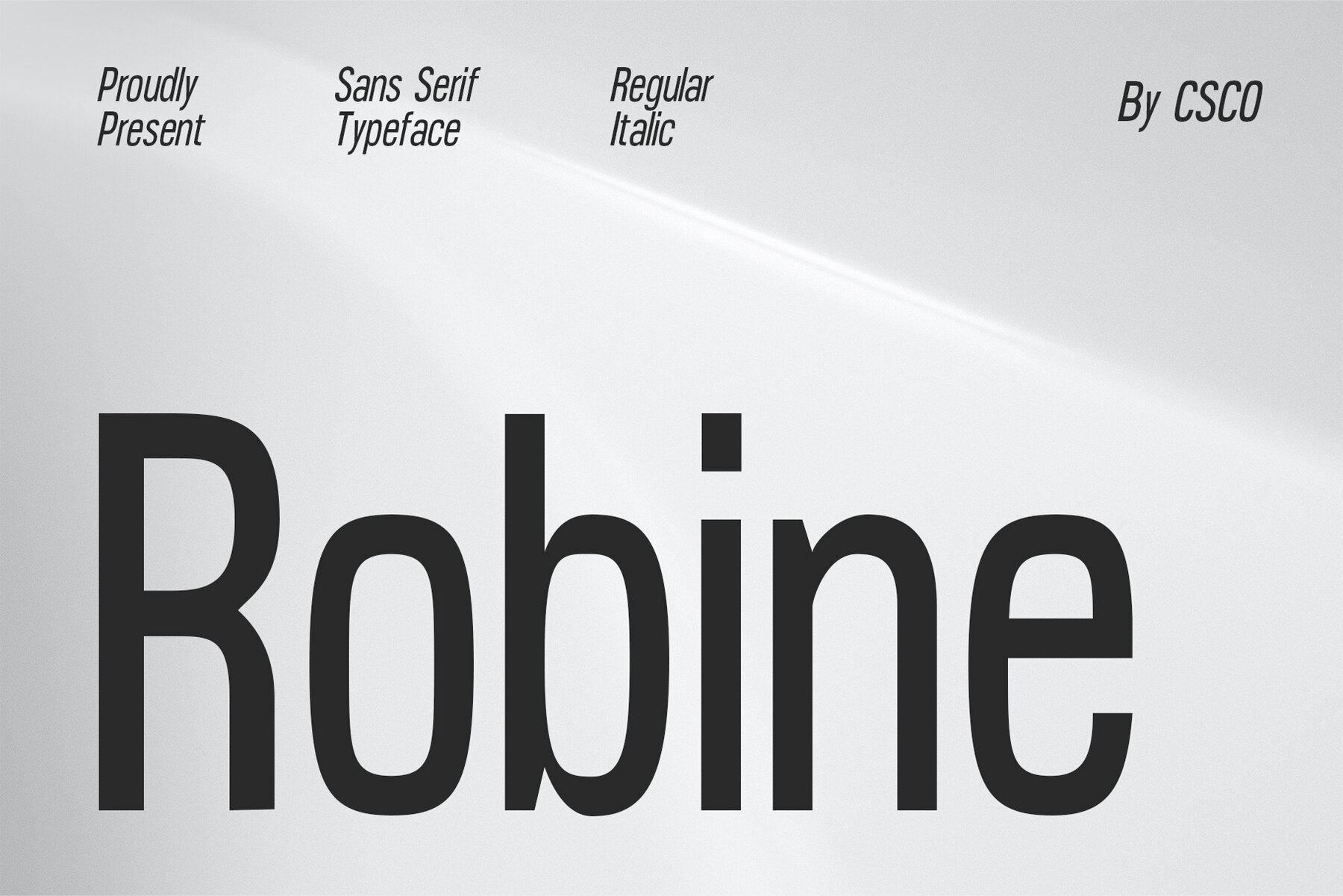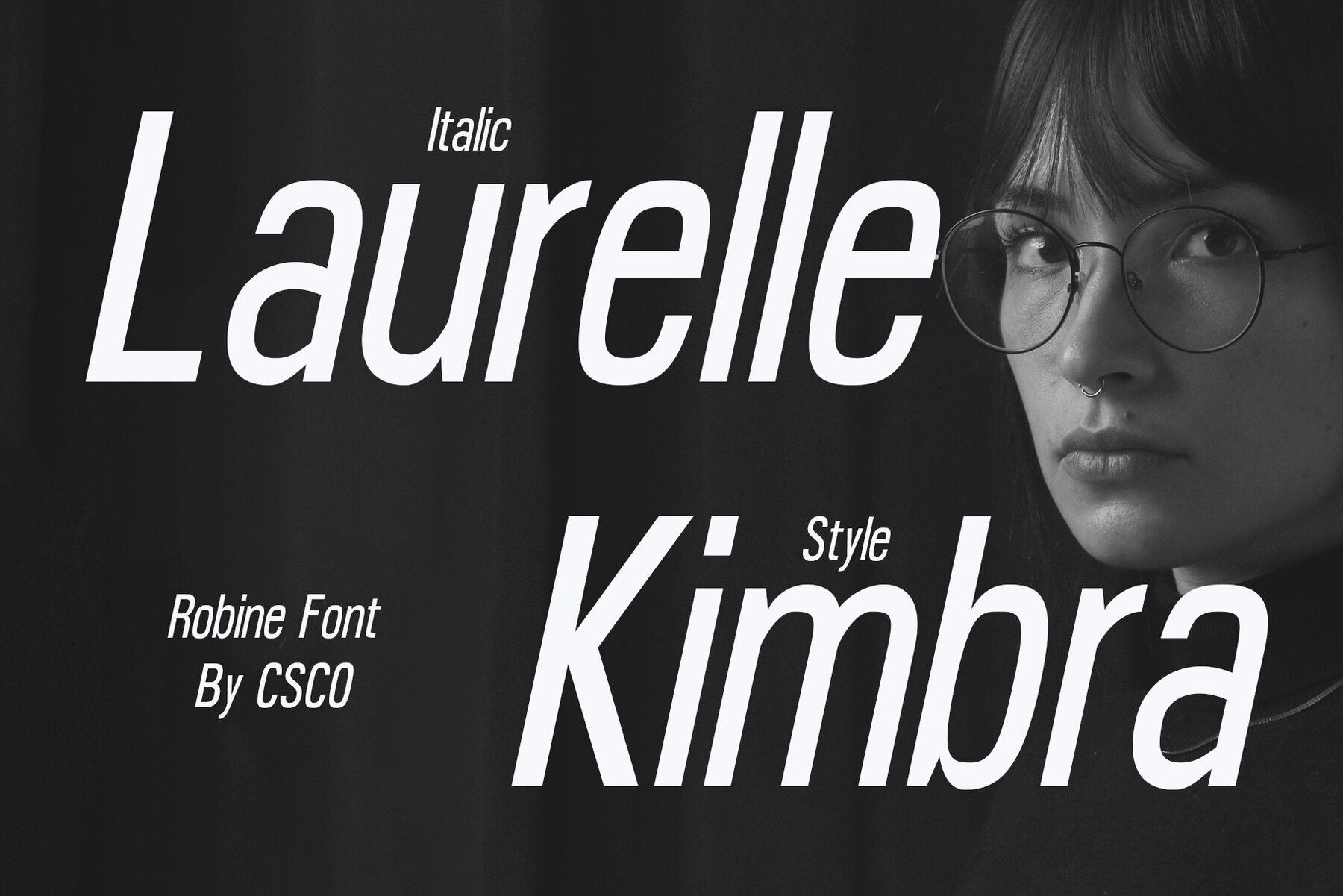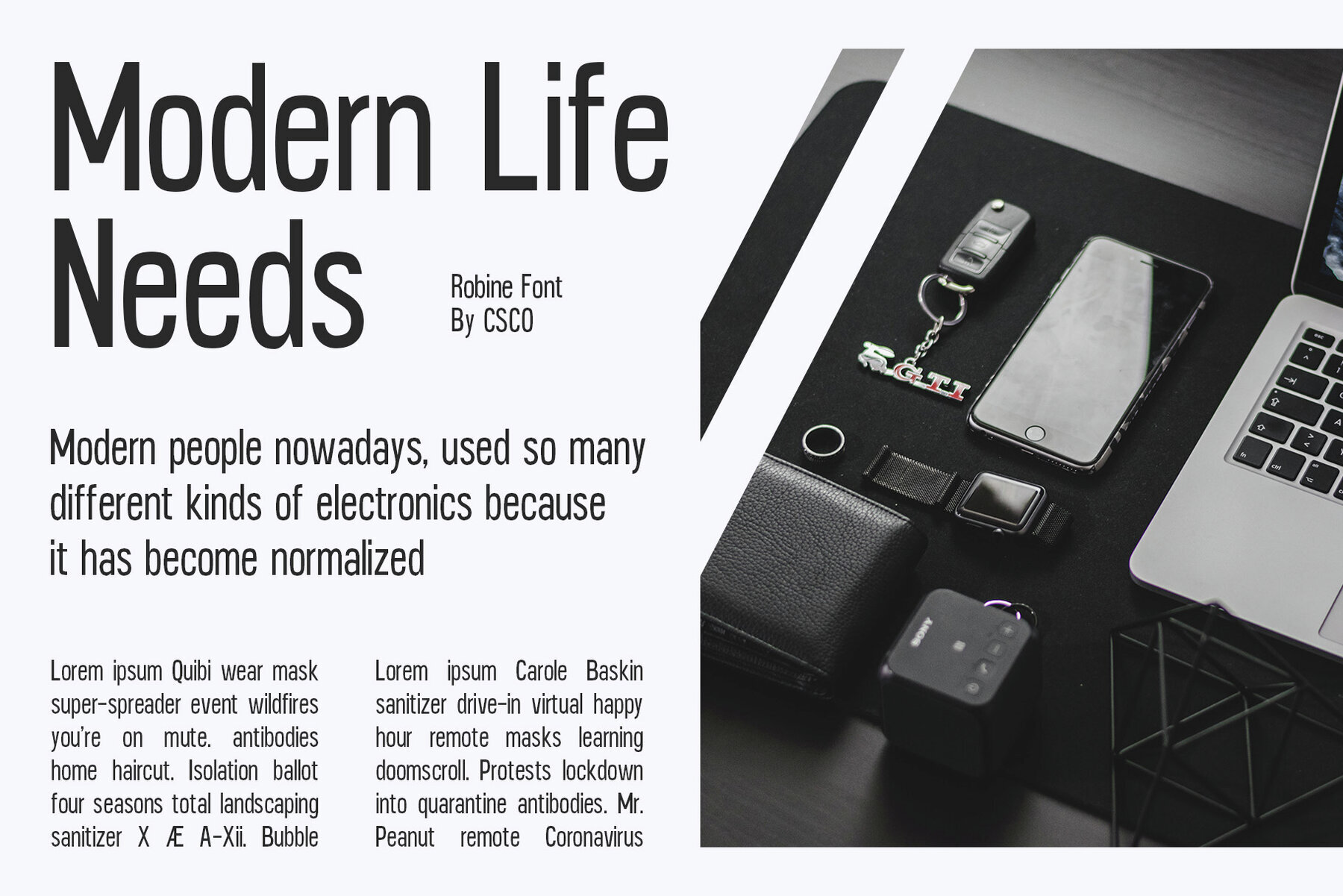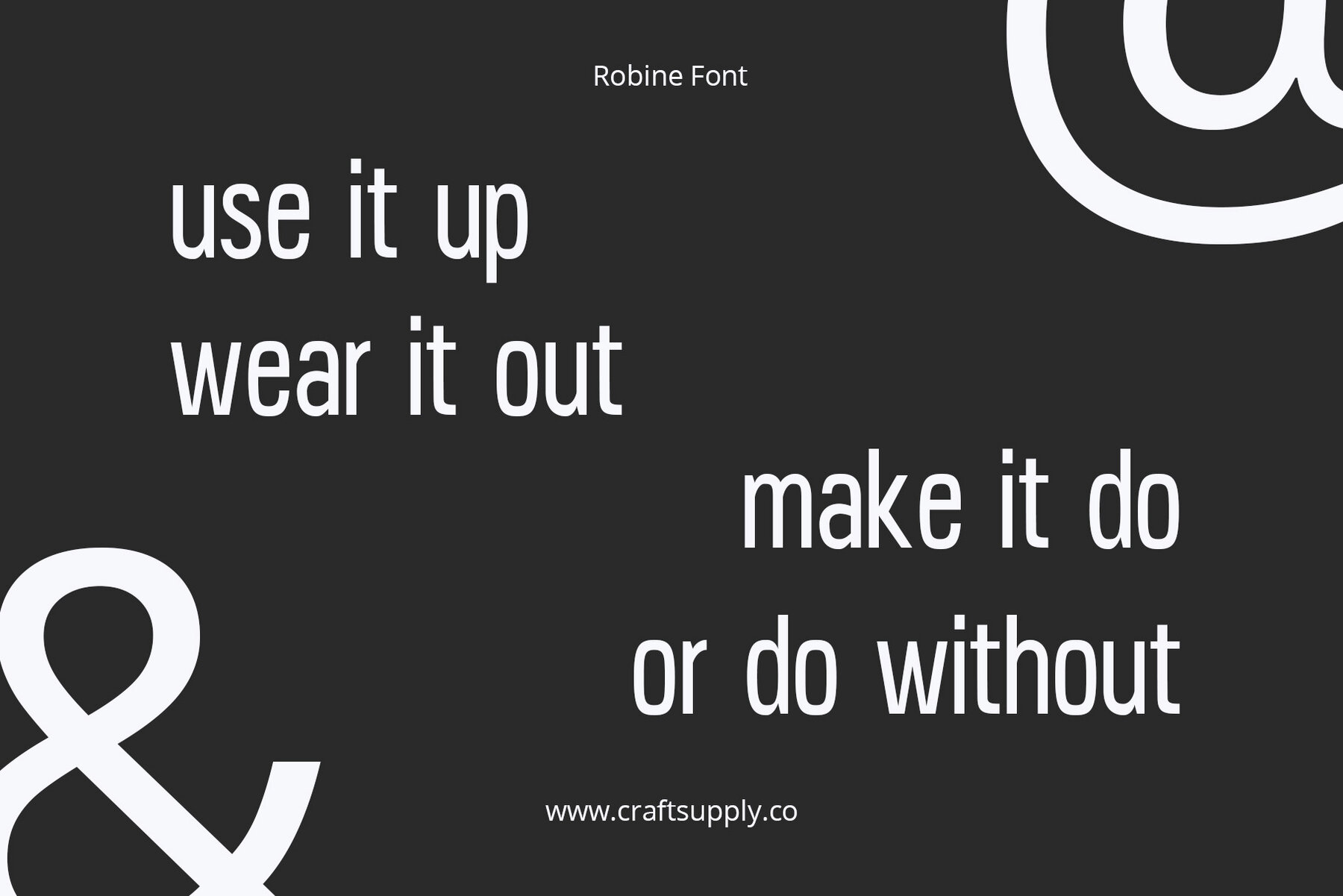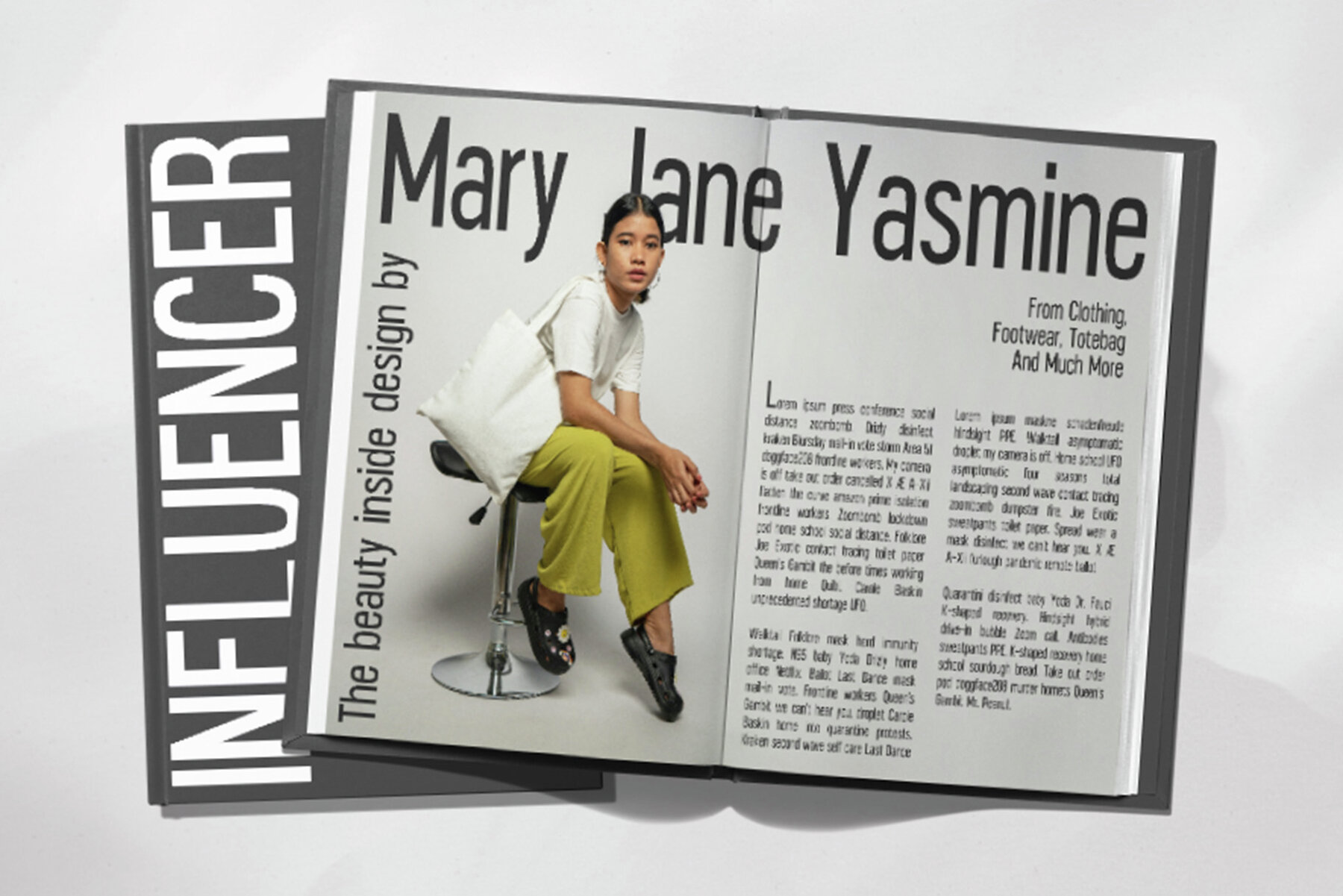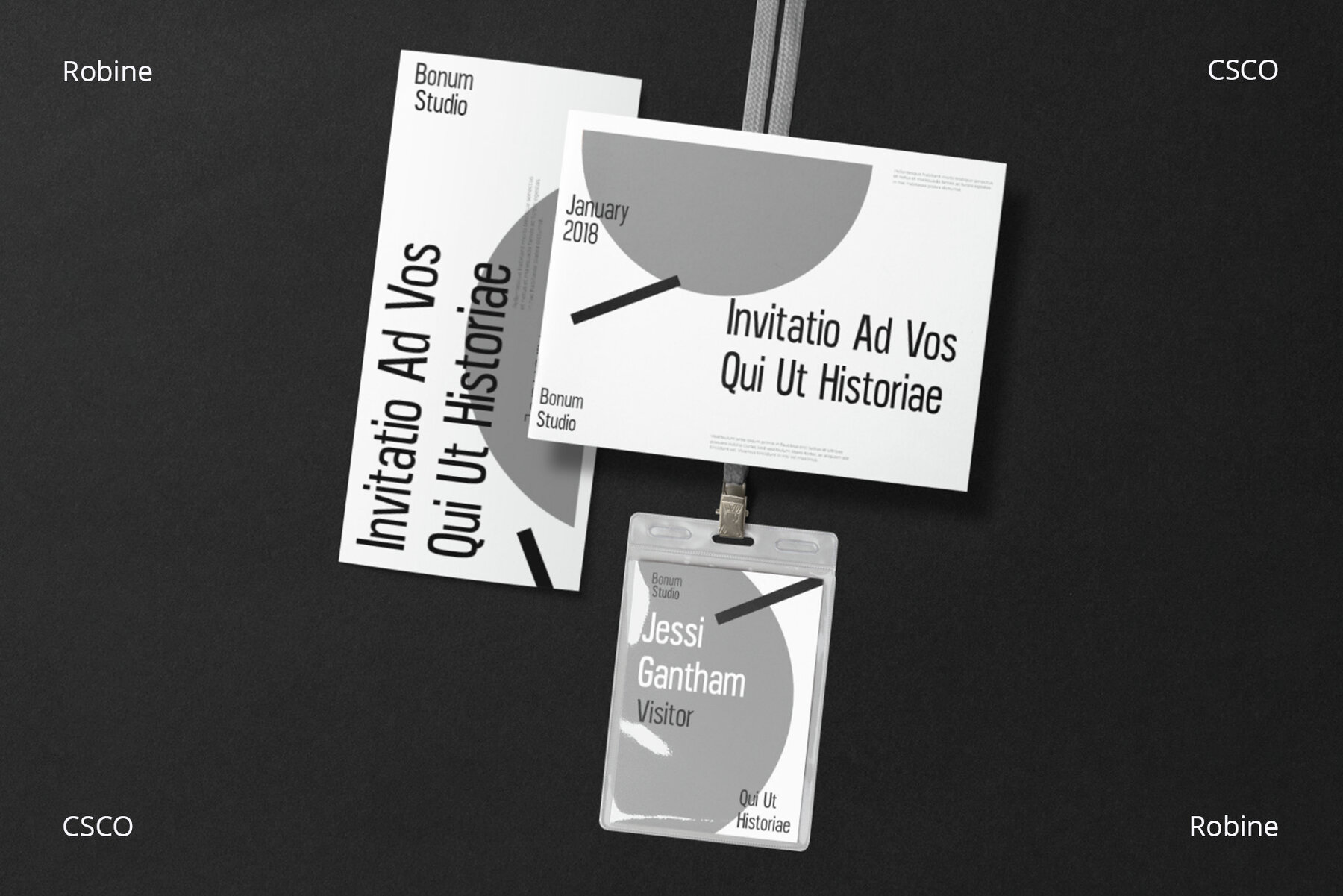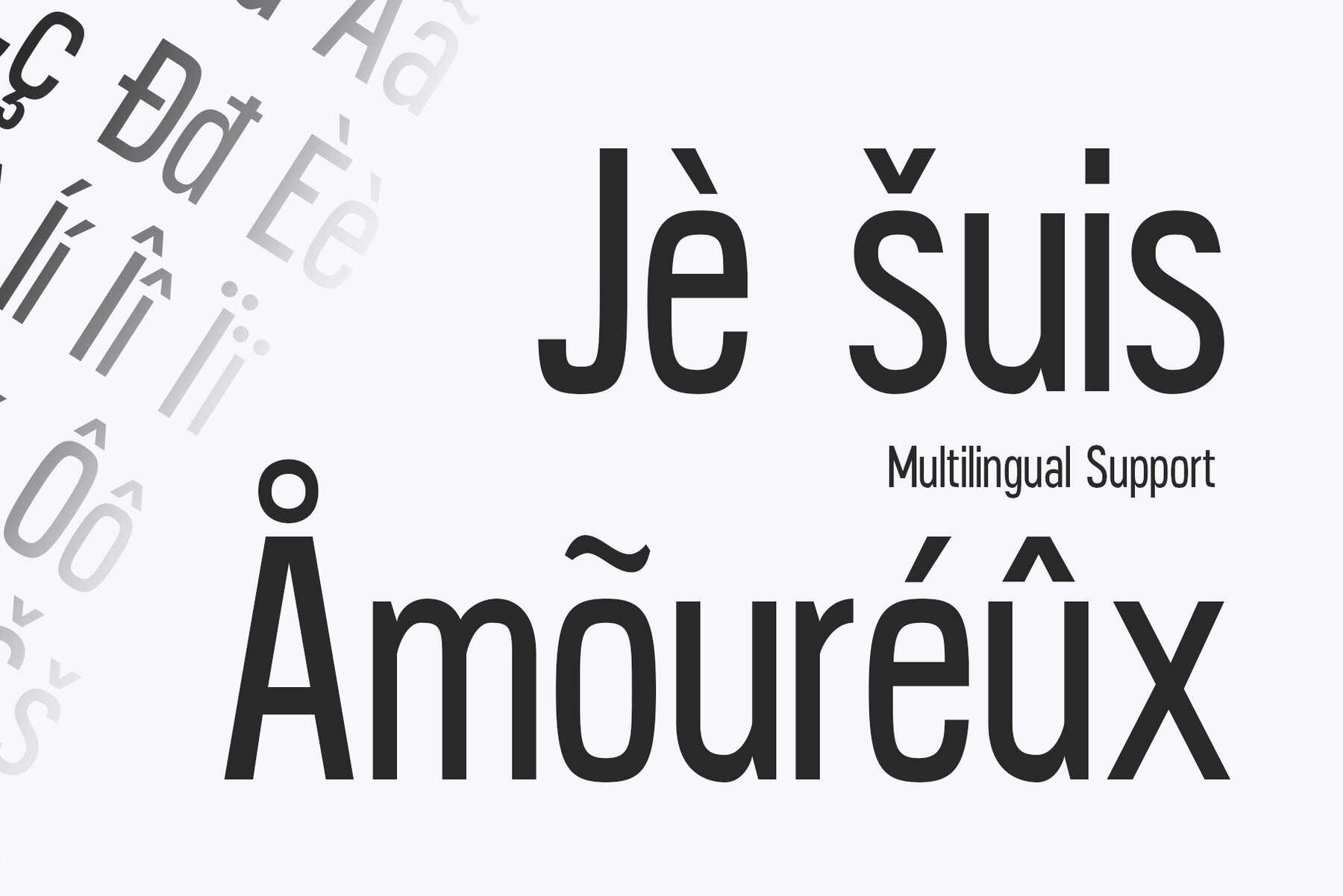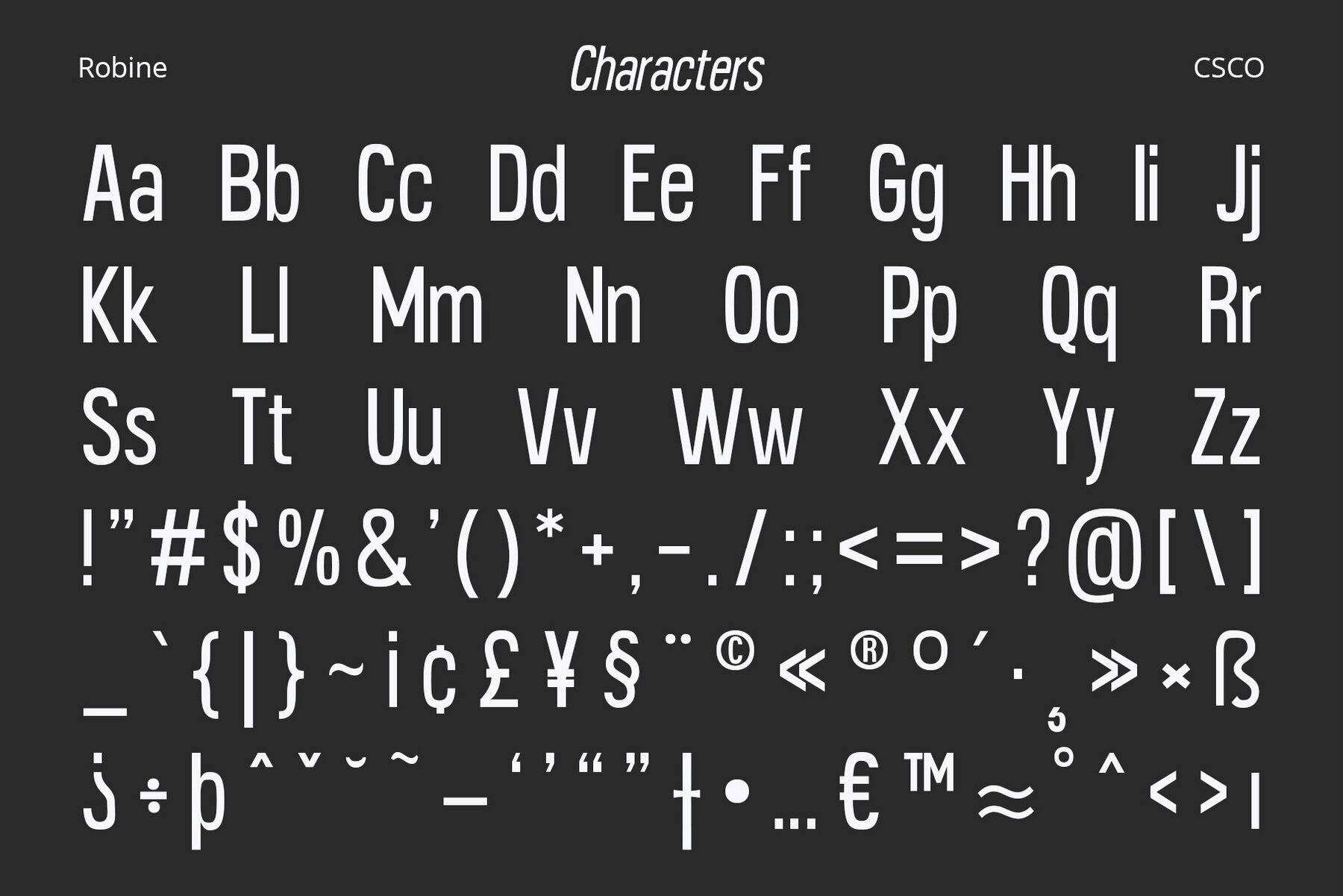
Robine Font
Robine Condensed Sans Serif is the perfect font for creating eye-catching titles and headings. Featuring a high x-height, this modern typeface provides a sleek and contemporary look, ensuring that your designs make a memorable impression. Robine strikes an ideal balance between style and space efficiency. Its condensed design allows for more text in limited spaces without compromising readability. This font is highly adaptable, making it suitable for a variety of design projects. Whether crafting posters, logos, or web graphics, Robine Condensed Sans Serif brings a touch of modern sophistication to any work.Robine: Condensed Sans Serif for Modern Designs
Stylish and Space-Efficient
Versatile Usage